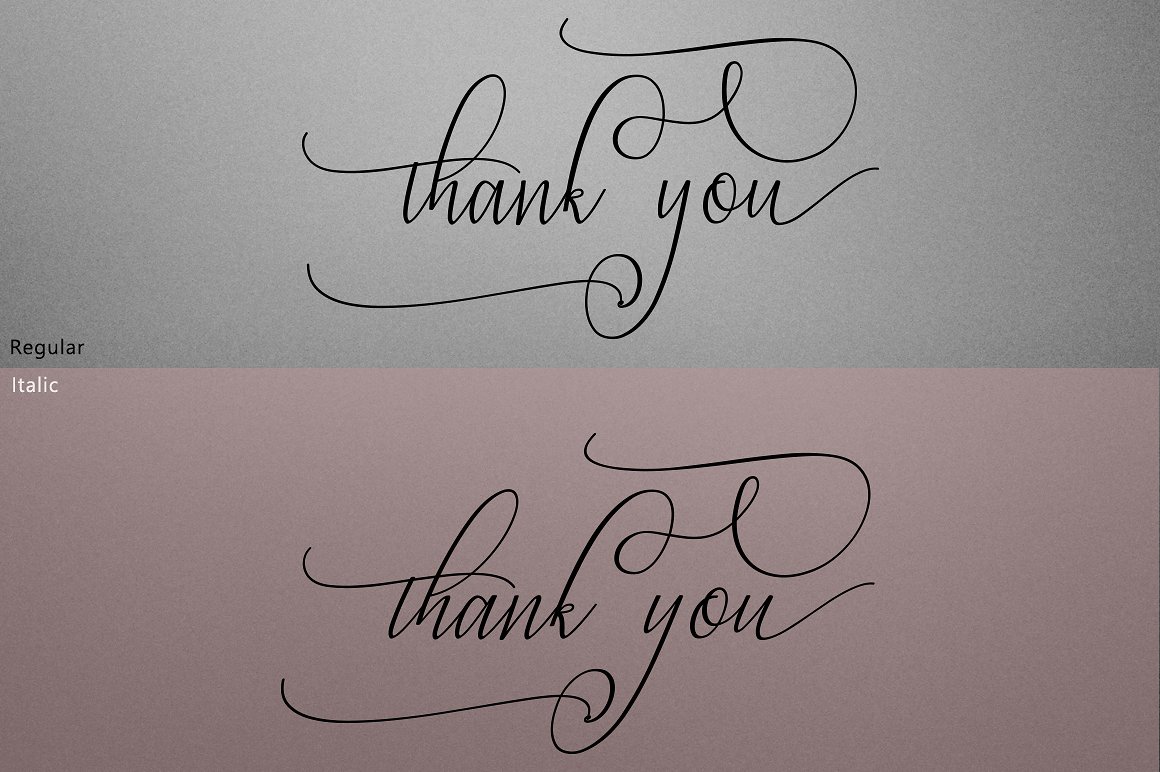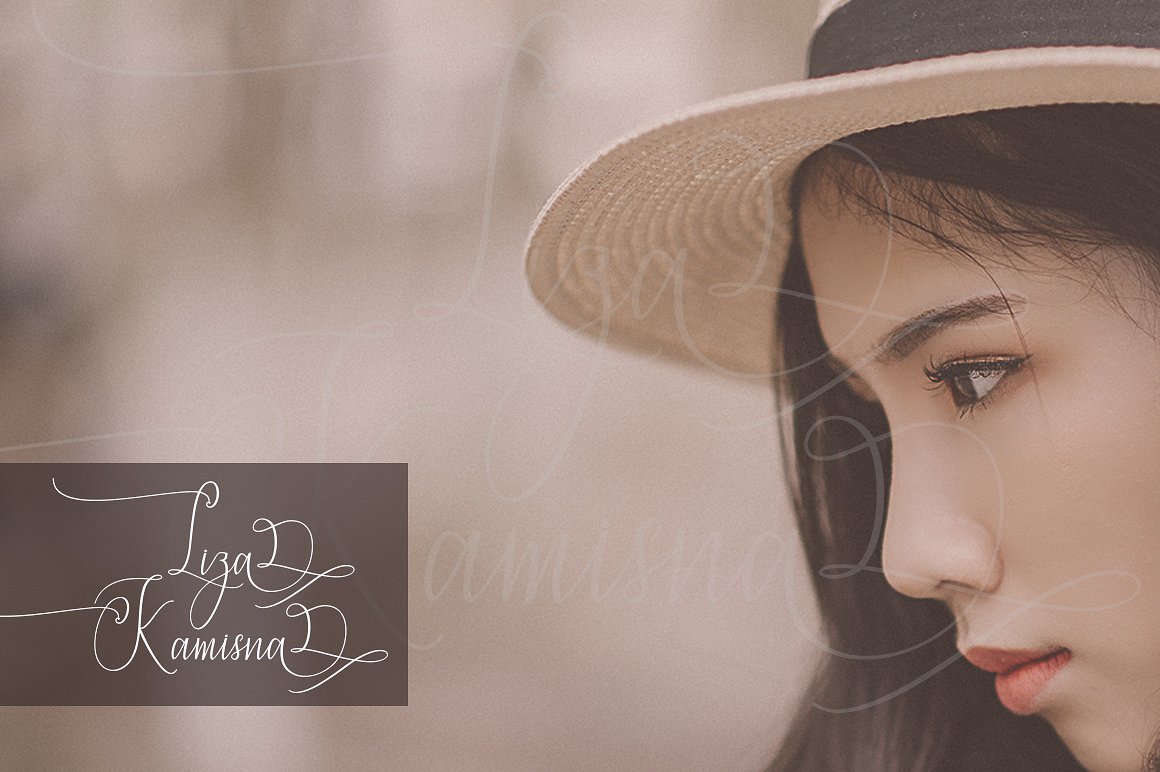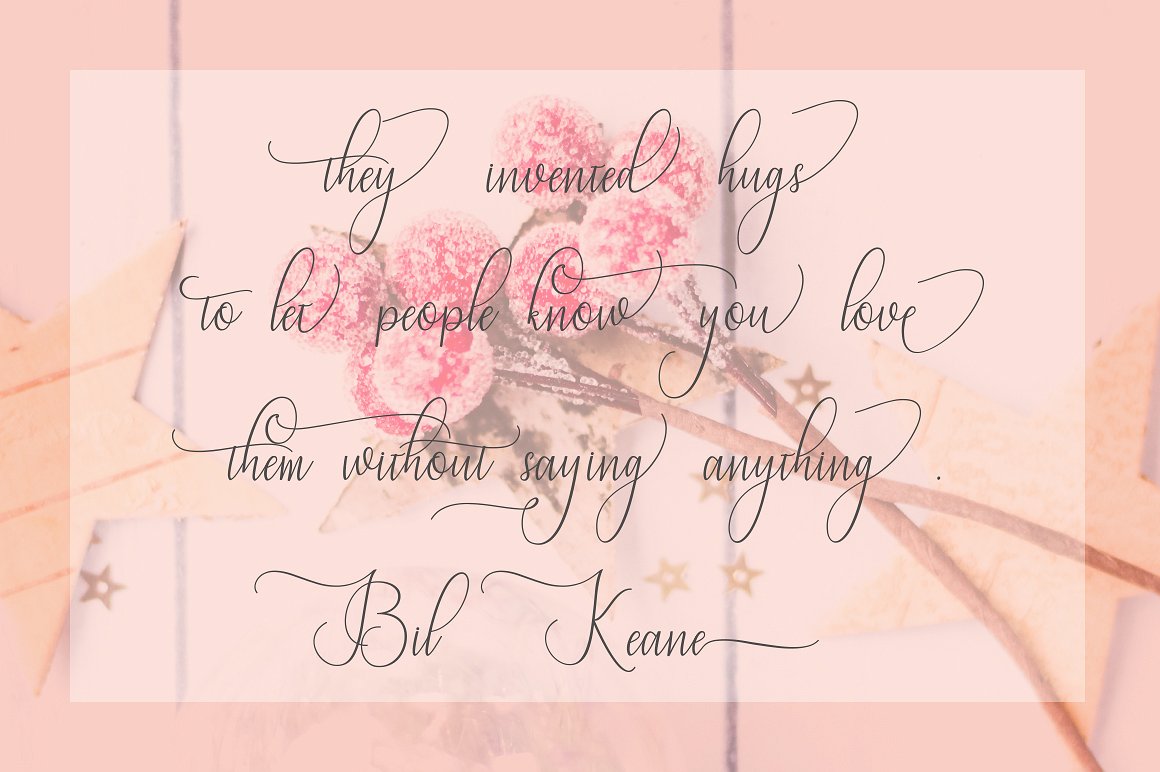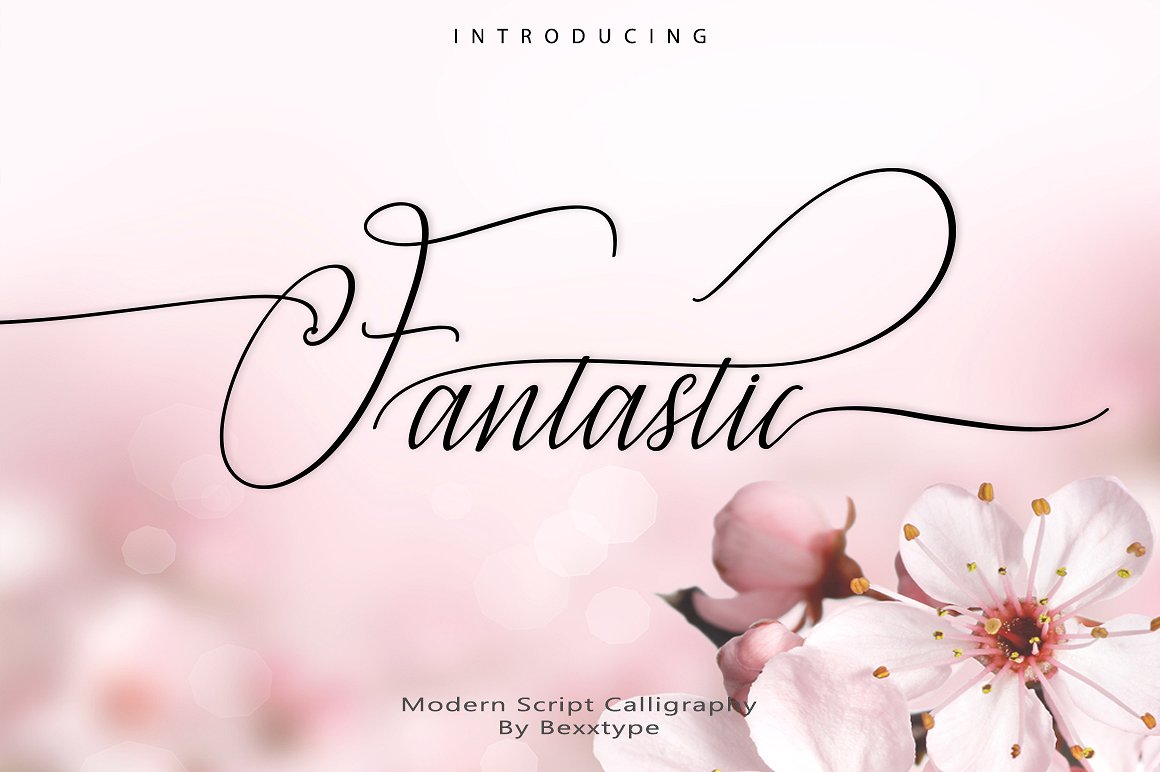
Fantastic Script Font
Inspired by a mixture of copper calligraphy with handlettering style. A ballpoint pen signature font by Bexxtype. Introducing Fantastic Font. The Fantastic script is a modern calligraphic manuscript, the bottom line that flows and moves freely. It has a relaxed yet elegant touch. Can be used for various purposes. Like logos, wedding invitations, titles, t-shirts, letterheads, nameplate, labels, news, posters, badges, etc.